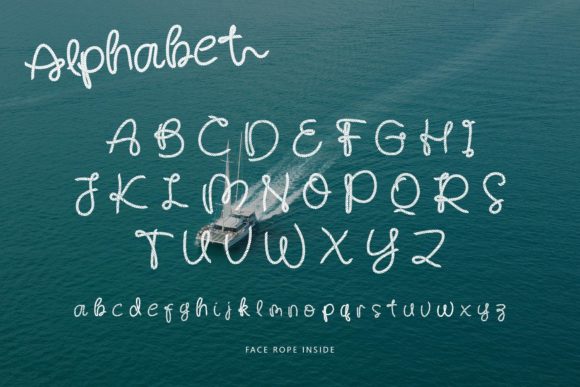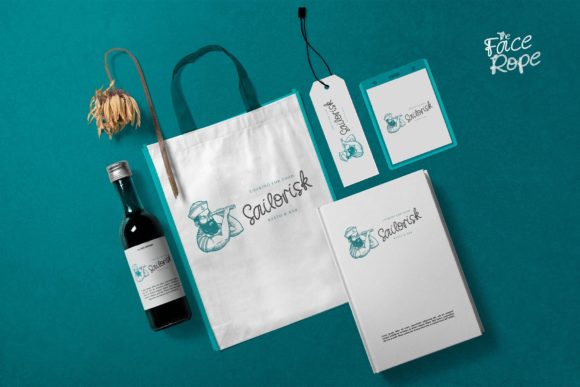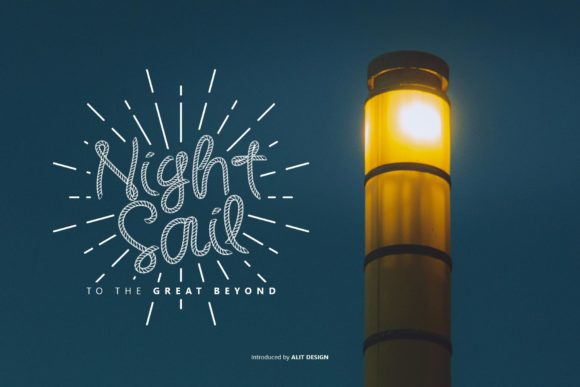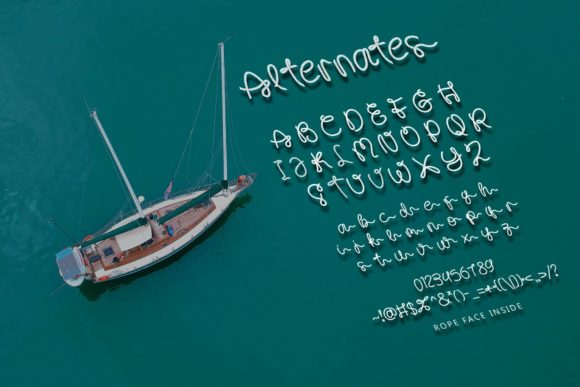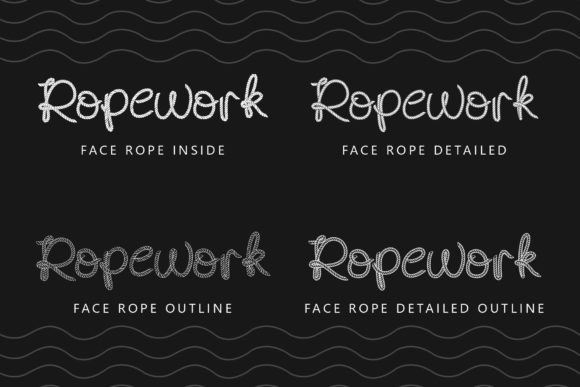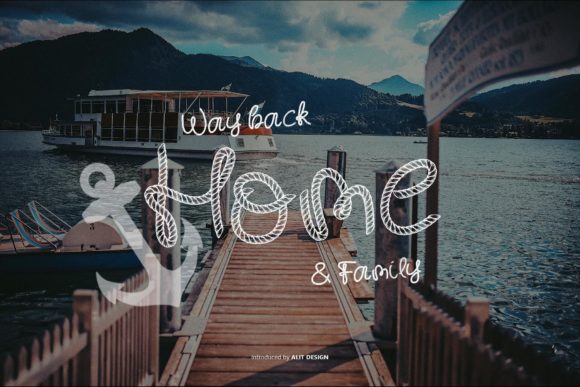
Introducing Face Rope Font: The Ultimate Display Font for Creative Projects
Are you tired of using the same old fonts for your designs? Look no further! Face Rope Font is a cool and interestingly designed display font that can add a touch of joy to any creative project. In this article, we’ll dive into the features and benefits of Face Rope Font, and explore how it can elevate your designs to the next level.
What is Face Rope Font?
Face Rope Font is a uniquely designed display font that is perfect for a variety of creative projects. Its playful and whimsical design makes it an excellent choice for cartoon-related designs, children’s games, quotes, titles, brand names, book covers, posters, and more. The font’s distinctive style is sure to grab attention and leave a lasting impression on your audience.
Key Features of Face Rope Font
- Playful Design: Face Rope Font boasts a fun and playful design that is sure to add a touch of joy to any project.
- Versatility: This font is perfect for a wide range of creative projects, from children’s games to book covers and posters.
- Easy to Read: Despite its playful design, Face Rope Font is easy to read, making it perfect for titles, headings, and quotes.
- Unique Style: The font’s distinctive style sets it apart from other display fonts, making it an excellent choice for designers looking to create something truly unique.
Benefits of Using Face Rope Font
So, why should you choose Face Rope Font for your next project? Here are just a few benefits of using this amazing display font:
- Adds a Touch of Joy: Face Rope Font is sure to add a touch of joy and whimsy to any project, making it perfect for designs that require a playful twist.
- Grabs Attention: The font’s unique design is sure to grab attention and leave a lasting impression on your audience.
- Perfect for Kids’ Projects: Face Rope Font is an excellent choice for children’s games, kids’ book covers, and other projects that require a fun and playful design.
- Easy to Pair: This font pairs well with a variety of other fonts, making it easy to create a cohesive design.
How to Use Face Rope Font
Using Face Rope Font is easy! Here are a few tips to get you started:
- Use it as a Display Font: Face Rope Font is perfect for use as a display font for titles, headings, and quotes.
- Pair it with Other Fonts: Experiment with pairing Face Rope Font with other fonts to create a unique and cohesive design.
- Use it for Kids’ Projects: Face Rope Font is an excellent choice for children’s games, kids’ book covers, and other projects that require a fun and playful design.
In conclusion, Face Rope Font is a cool and interestingly designed display font that is perfect for a variety of creative projects. Its playful and whimsical design makes it an excellent choice for designers looking to add a touch of joy to their designs. With its versatility, ease of use, and unique style, Face Rope Font is sure to become a go-to font for designers and crafters alike.
- Experiment with Different Sizes: Face Rope Font looks great in a variety of sizes, so don’t be afraid to experiment to find the perfect size for your project.
- Use it for Social Media: Face Rope Font is perfect for use on social media platforms, where it’s sure to grab attention and leave a lasting impression.
- Try it with Different Colors: Face Rope Font looks great in a variety of colors, so don’t be afraid to experiment to find the perfect color for your project.